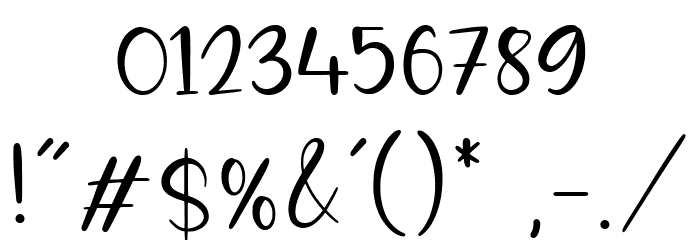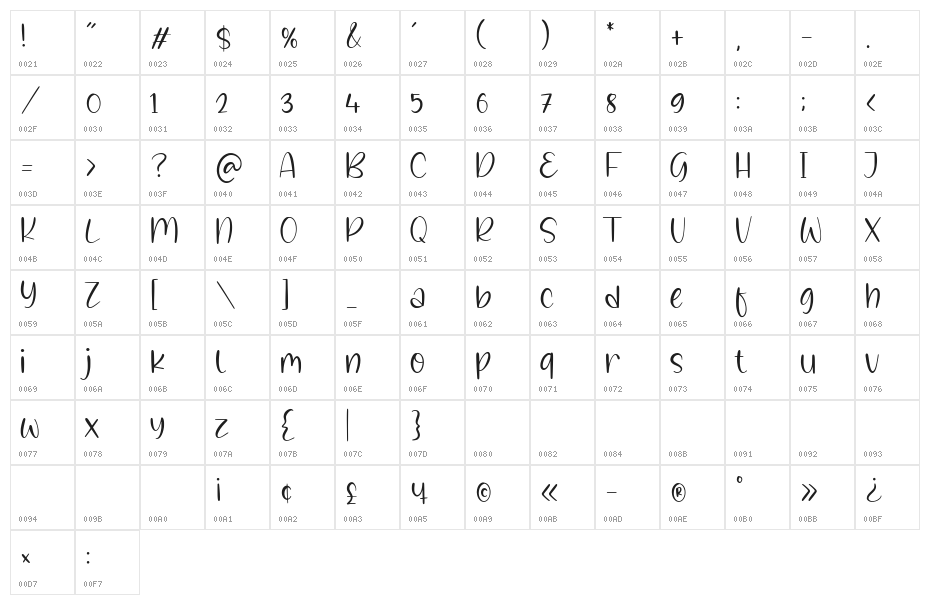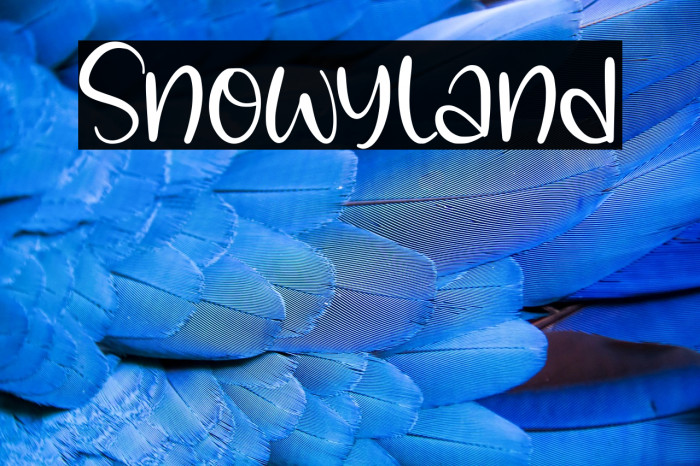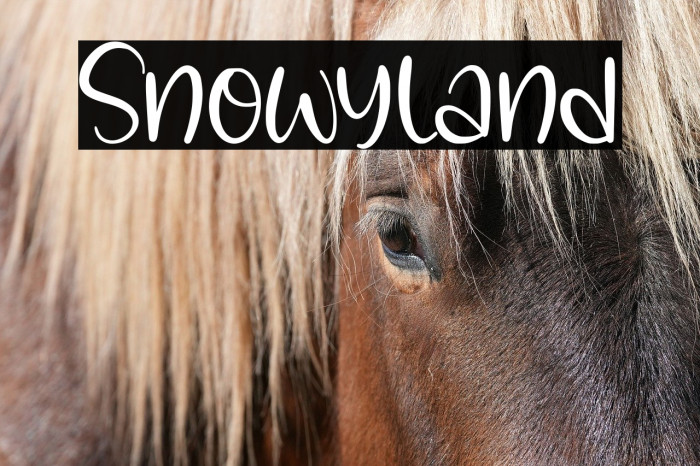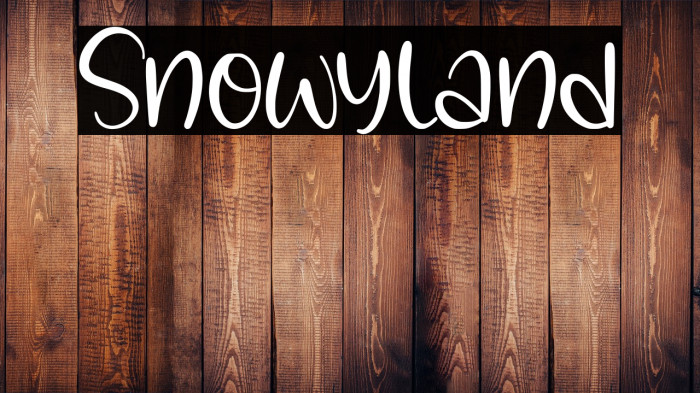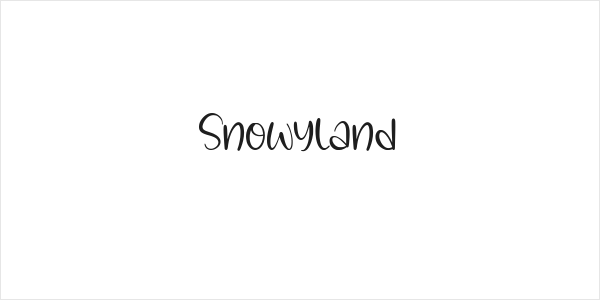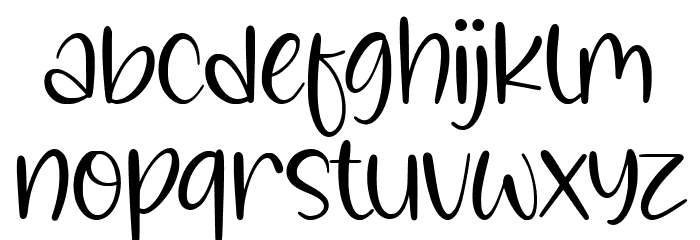
Snowyland Font
Snowyland Description
This playful and whimsical font features a handwritten style with smooth, flowing curves and a casual, friendly appearance. The letters are slightly slanted, giving it a dynamic and lively feel. The uppercase and lowercase characters maintain a consistent style, with rounded edges and a uniform stroke width that adds to its approachable look. The numerals and special characters are crafted to match the overall aesthetic, ensuring a cohesive appearance across all text. This font is perfect for projects that require a personal touch, such as invitations, greeting cards, or playful branding.
| Use Case | Invitations, Greeting cards, Playful branding |
| Proposed Projects | Ideal for invitations, greeting cards, playful branding, and personal projects. |